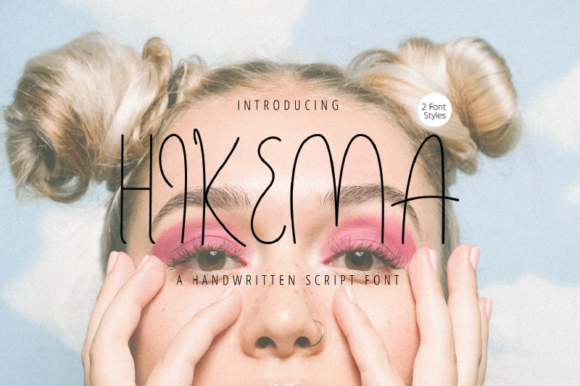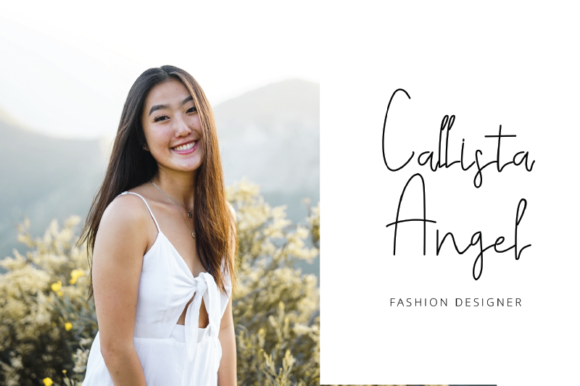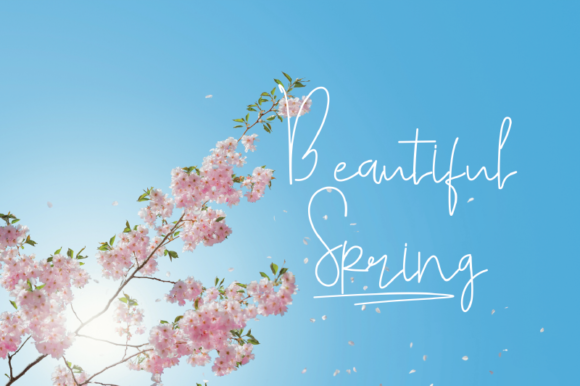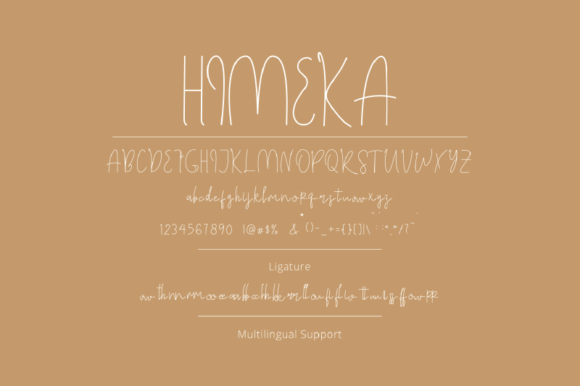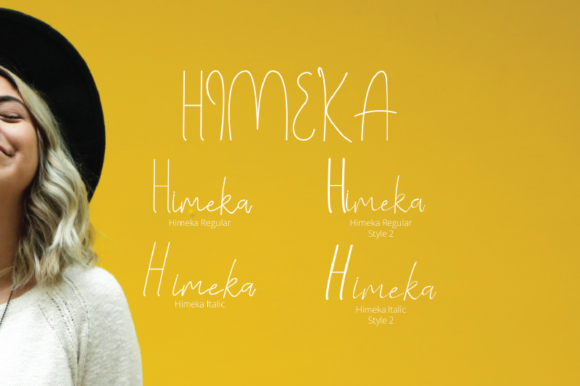
HomeScript FontsHimeka Font Script Fonts Himeka Font FacebookXPinterestWhatsApp Himeka Font Poster 2 Himeka Font Poster 3 Himeka Font Poster 4 Himeka Font Poster 5 Himeka Font Poster 6 About Himeka Font Himeka is a lovely script font featuring elegantly designed letters. Get inspired by its charming nature! DOWNLOAD ON CREATIVE FABRICAThis font is sold and delivered by Creative Fabrica. Font Canyon may earn a commission if you buy through this link. People also explored Rushalna Font Anything Font Family Font Roguedash Font Dread Font Stright Brush Font Dussel Font The Raid Letter Font Afroza Font 335 0 TagsHimeka Font Previous articleWildcard FontNext articleBordemile Font LEAVE A REPLY Cancel reply Comment: Please enter your comment! Name:* Please enter your name here Email:* You have entered an incorrect email address! Please enter your email address here Website: Save my name, email, and website in this browser for the next time I comment. Personal Use Free Darla Personal Use Free Read more about this font Boston Traffic Personal Use Free Read more about this font Pasile Personal Use Free Read more about this font Cherry Ai Personal Use Free Read more about this font BLOG Top 7 Google Fonts Alternatives for Faster and Privacy-Friendly Web Design (2025) Top 7 Google Fonts Alternatives for Faster and Privacy-Friendly Web Design (2025) When it comes to web typography, Google Fonts has long been the go-to... 5 Fonts That Will Dominate Design Trends in 2026 Free Fonts Risk: Why Free Fonts Can Be Dangerous for Designers Modern Sans-Serif Fonts That Brands Love in 2025